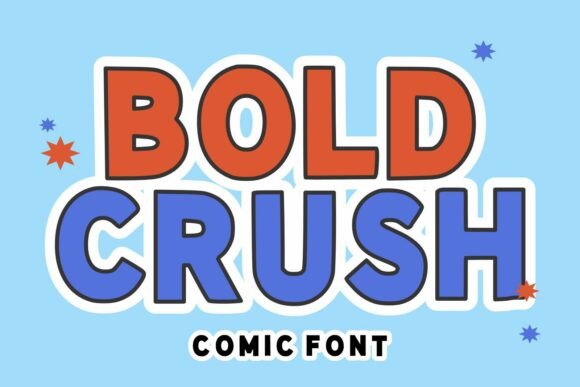
The Bold Crush Font: A Fun and Energetic Comic-Style Display Font
I’ll never forget the time I was working on a project for a kids’ comic book series. I had all the illustrations ready, but I was struggling to find the perfect font to bring the story to life. That’s when I stumbled upon the Bold Crush font. It was love at first sight! 💕 The thick, bold letters and playful personality instantly grabbed my attention, and I knew I had found the perfect fit.
A Personal Review: What I Love About Bold Crush
So, what makes Bold Crush so special? Here are a few things I love about this font:
• ✨ Attention-grabbing: Bold Crush is designed to grab attention, making it perfect for comics, posters, kids’ designs, stickers, social media graphics, t-shirt prints, and creative branding.
• ✅ Playful personality: This font has a lively and cheerful vibe that brings a fun and energetic feel to your projects.
• 💯 Versatile: Bold Crush can be used for a wide range of designs, from digital graphics to print materials.
While Bold Crush is an amazing font, there are a few small quirks to keep in mind:
• 🤔 Limited use in body text: Due to its bold and playful nature, Bold Crush might not be the best choice for body text. It’s better suited for headings and titles.
• ⚠️ Legibility at small sizes: While the font is bold, it may become less legible at very small sizes. It’s best used at larger sizes where its playful personality can shine.
The Designer Inspiration Behind Bold Crush
Bold Crush was designed with one goal in mind: to create a fun and energetic comic-style display font that brings a playful personality to your projects. The designer, inspired by classic comic books and playful illustrations, crafted Bold Crush to be a versatile font that’s perfect for a wide range of designs.
Q: What is Bold Crush font?
A: Bold Crush is a fun and energetic comic-style display font with thick bold letters and a playful personality.
Q: What can I use Bold Crush font for?
A: Bold Crush is perfect for comics, posters, kids’ designs, stickers, social media graphics, t-shirt prints, and creative branding.
Q: Is Bold Crush font easy to read?
A: Bold Crush is a bold font, but it may become less legible at very small sizes. It’s best used at larger sizes where its playful personality can shine.